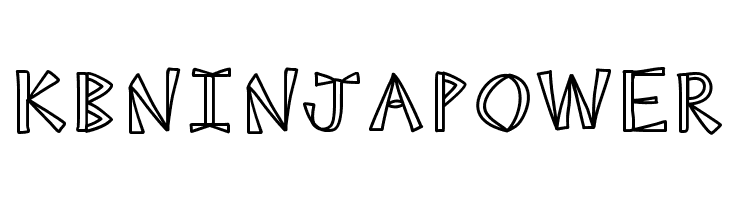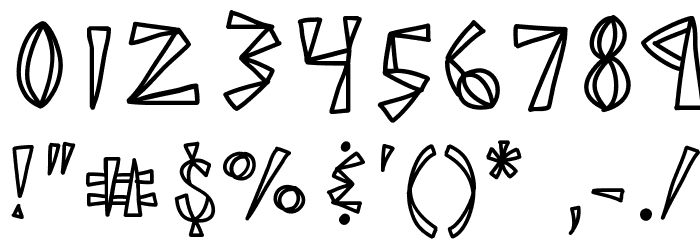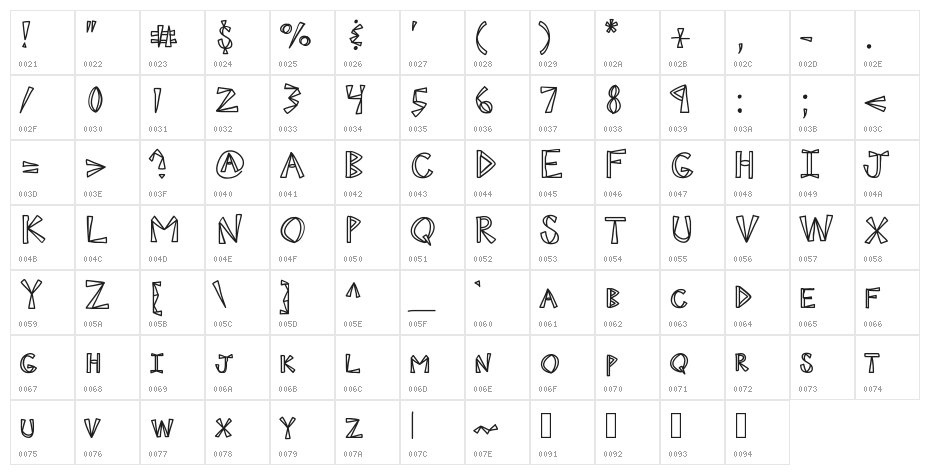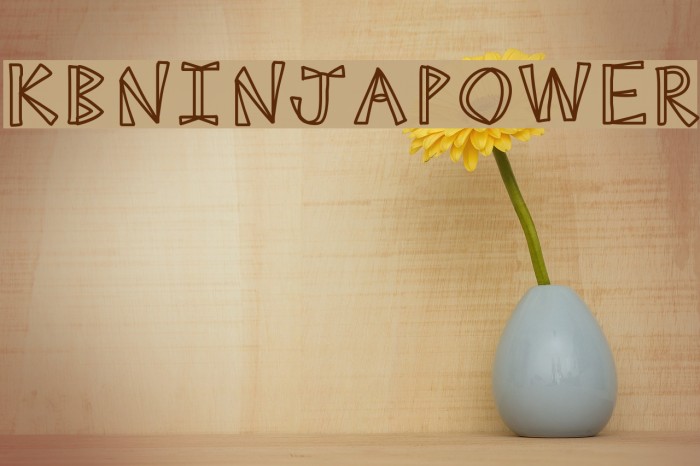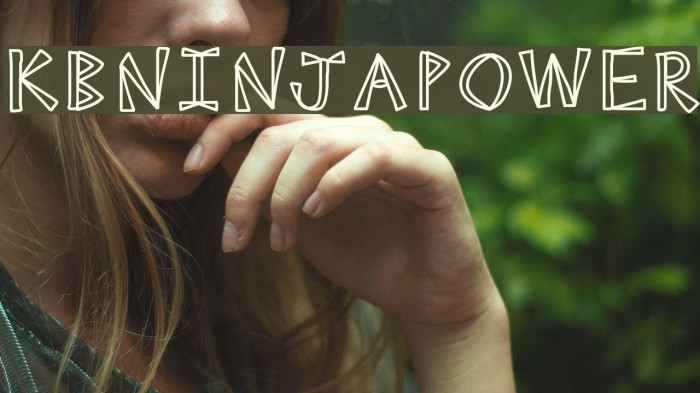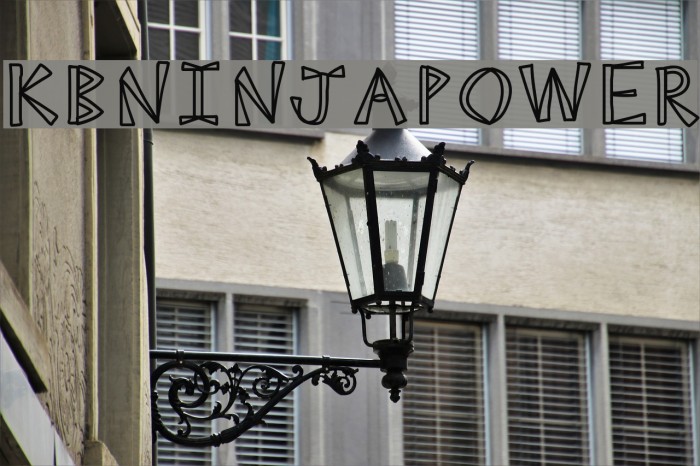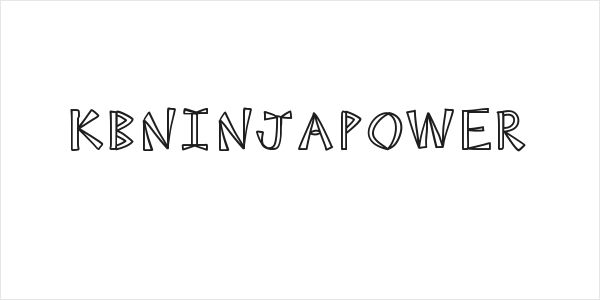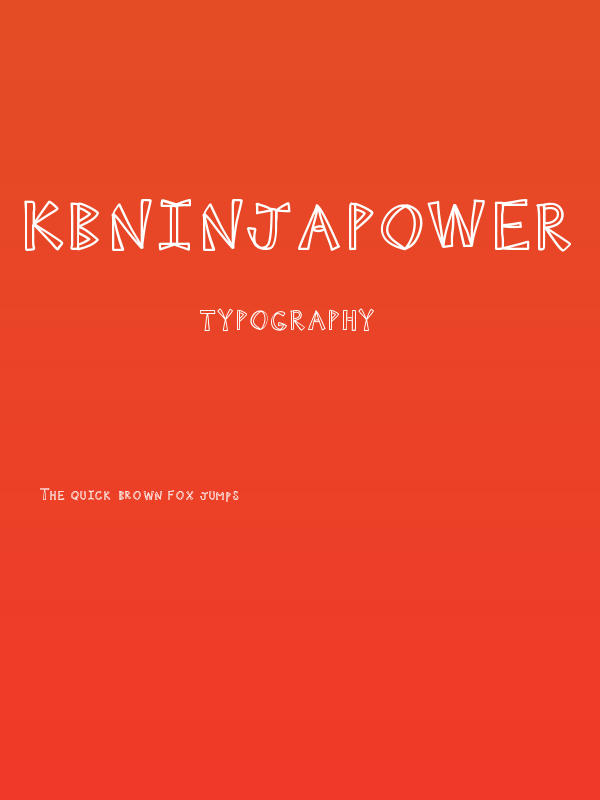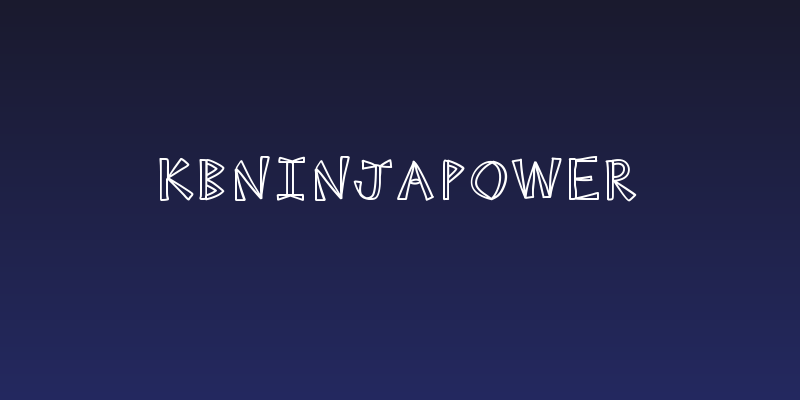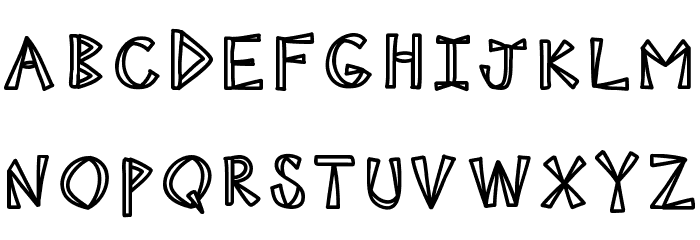
KBNINJAPOWER Font
KBNINJAPOWER Description
This font features a bold, playful style with a hand-drawn appearance. The characters are outlined with a thick stroke, giving them a cartoonish and dynamic look. The letters have a geometric structure, with sharp angles and a sense of movement. The uppercase and lowercase letters maintain a consistent style, while the numbers and special characters add to the font's quirky personality. This font is ideal for projects that require a fun and engaging visual element, such as children's books, comic strips, or playful branding.
| Overall Style | Playful, Cartoonish, Hand-drawn |
| Proposed Projects | Children's books, comic strips, playful branding, posters, and greeting cards. |